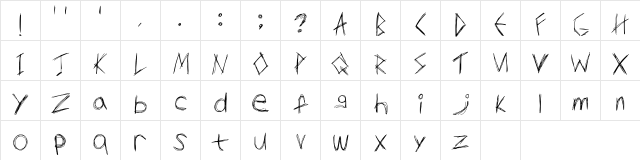
War Remains Regular
Design Context for War Remains
War Remains is a composed and adaptable typeface that performs quietly and consistently across a wide range of design contexts.